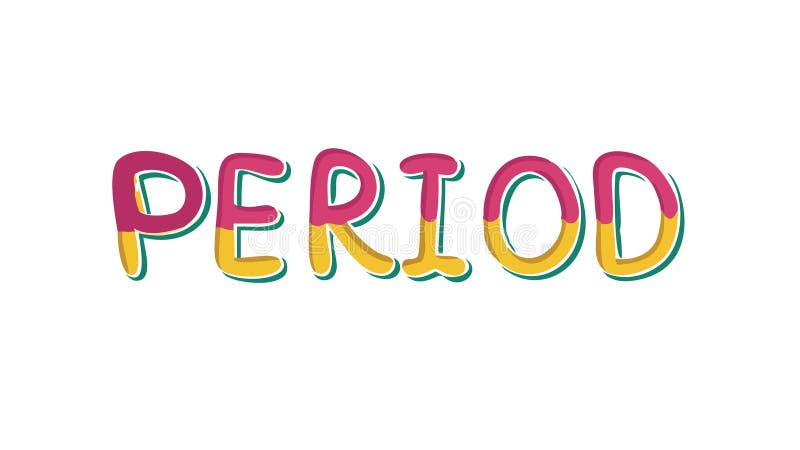
Colorful PERIOD text icon related to menstruation cycle, vector design Generative AI. A text icon displaying the word PERIOD in a vibrant, colorful font. Directly relates to menstruation, women s health, or cycle tracking. Useful for health apps, educational materials, or content focused on reproductive health and wellness. , vector design Generative AI